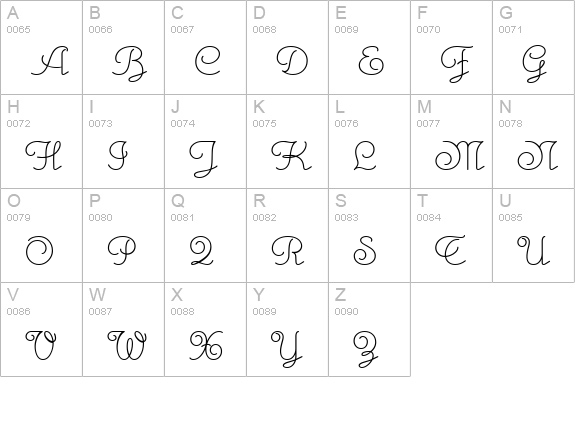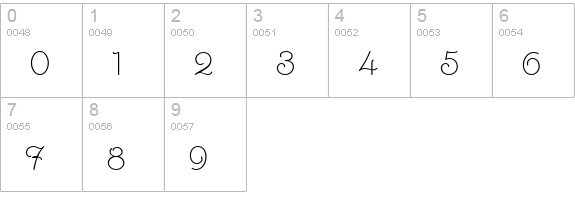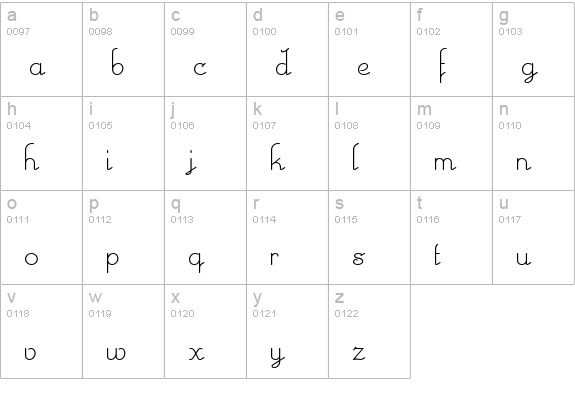
MonteCarloScriptNF Font Details
MonteCarloScriptNF font is a beautifully crafted script typeface that exudes elegance and sophistication. With its stylish curves and graceful letterforms, this font is perfect for adding a touch of luxury to your designs. Whether you are creating wedding invitations, branding materials, or anything in between, MonteCarloScriptNF font will surely make your text stand out. The best part about MonteCarloScriptNF font is that it is completely free to download at FontsMarket.com. This means you can easily access this stunning font and use it in your projects without any cost. Don't miss out on the opportunity to enhance your designs with the timeless beauty of MonteCarloScriptNF font. Download it today and elevate your creations to the next level.